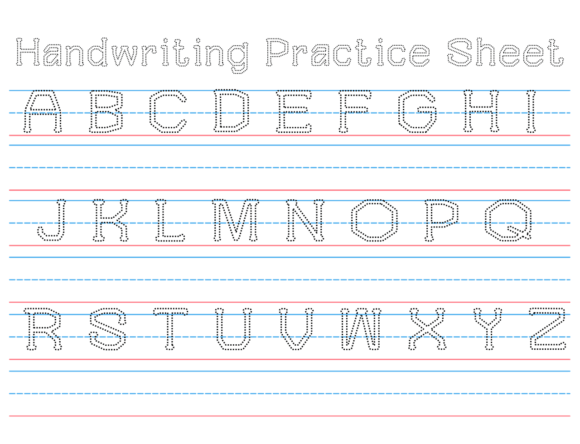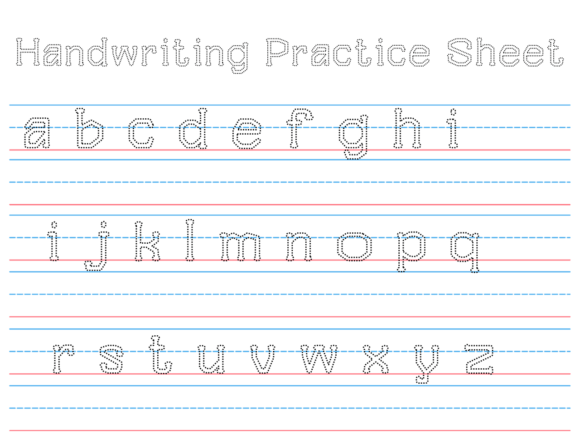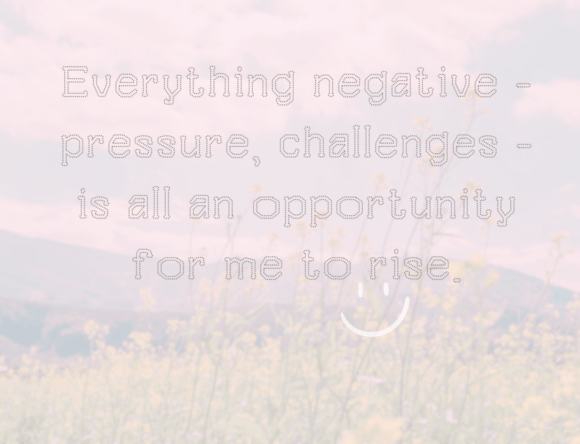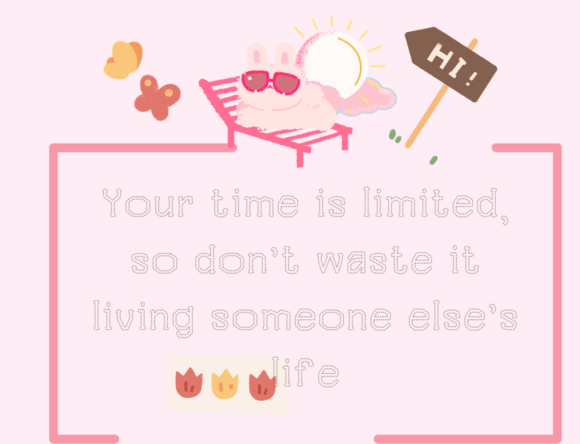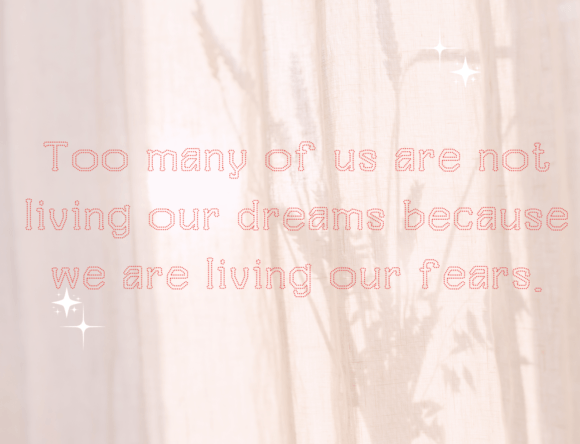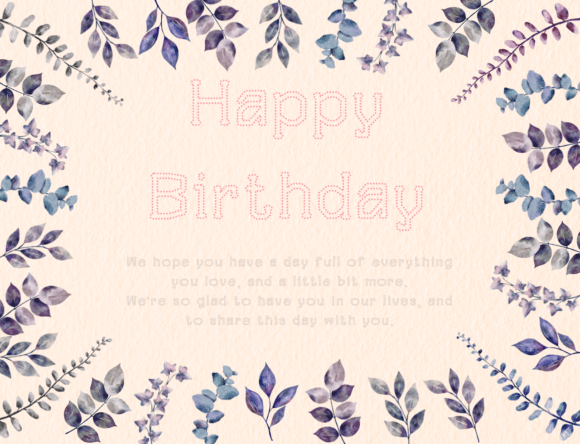
Neighbor Font: Elevating Your Creative Projects
Do you remember that moment when you stumbled upon a unique font that perfectly captured the essence of your creative project? For me, it was a handwritten font that gave my digital planner a personal touch. That ‘aha’ moment sparked a desire to create something similar, and that’s where Neighbor Font comes in – a custom-designed font that lets you add a distinct touch to your work.
| 👤 Author | Pukka De |
As a designer, you’re always on the lookout for high-quality design resources that can elevate your projects. Neighbor Font is a valuable addition to your toolkit, offering a free download with a transparent background, perfect for use in a variety of creative projects. Whether you’re designing greeting cards, logos, or handwritten notes, this font will give your work a unique look that sets it apart.
Key Features of Neighbor Font
- Unique, hand-drawn design with a modern twist, suitable for a wide range of creative projects
- Supports Latin and Cyrillic alphabets, making it a versatile design resource
As a designer, I’m always on the lookout for high-quality design resources to elevate my creative projects. Recently, I stumbled upon Neighbor Font, and I’m excited to share my honest review with you.
- ✨ What works well: Neighbor Font has a beautiful, modern aesthetic that’s perfect for a wide range of design applications. The font is incredibly versatile and works well for both digital and print projects.
- ✨ What works well: The quality of the font is top-notch, with crisp, clear lines and a professional finish. I’ve used it for a number of projects, and it’s always received positive feedback.
⚠️ Limitations: One thing to keep in mind is that Neighbor Font may not be the best choice for extremely small text sizes. In some cases, the letters may become blurry or difficult to read.
Overall, I’m thoroughly impressed with Neighbor Font. It’s a high-quality design resource that’s perfect for any creative project. With its modern aesthetic, transparent background, and professional finish, it’s a great addition to any designer’s toolkit. Whether you’re working on a logo, brochure, or website, Neighbor Font is definitely worth considering.
To get the most out of Neighbor Font, use it in a creative project that showcases its unique design. You can also experiment with different font sizes, colors, and arrangements to create a visually appealing design.
Common Use Cases for Neighbor Font
Neighbor Font is commonly used in creative projects such as logos, business cards, and brochures. It is also used in digital designs such as website headers and social media graphics.